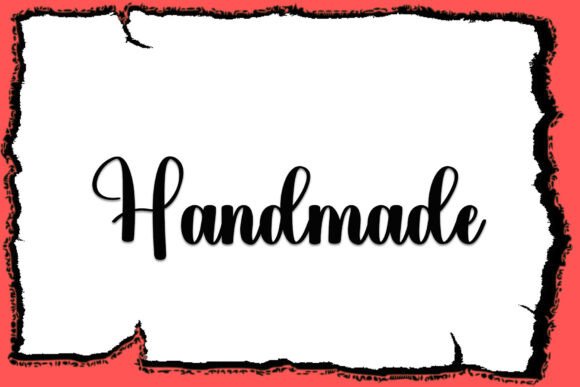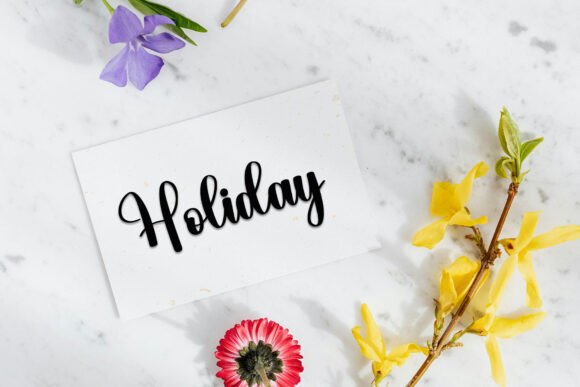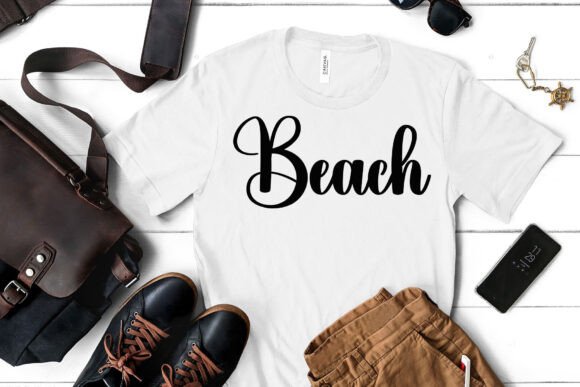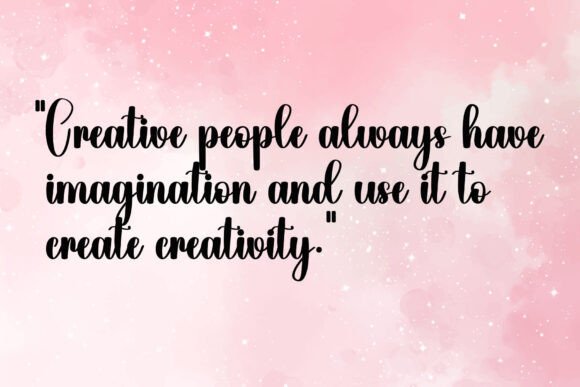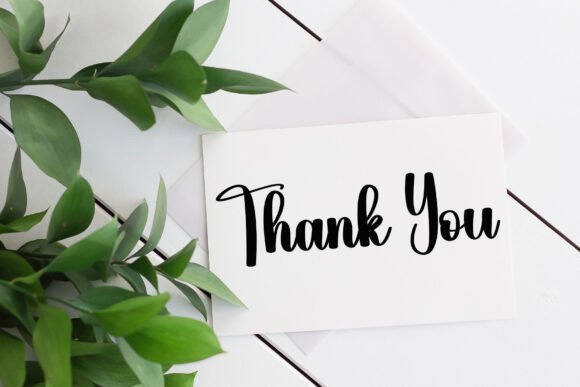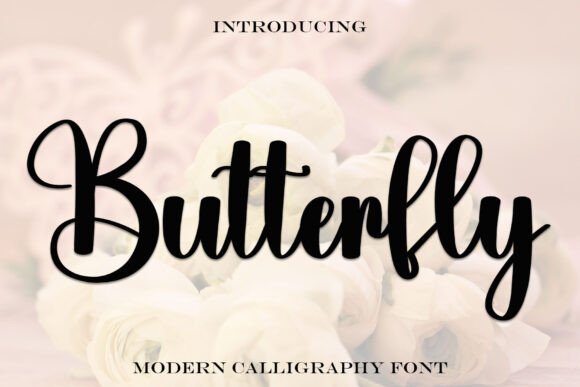
The Perfect Touch: Unlocking the Magic of Butterfly Font
As designers, we’ve all been there – staring at a blank canvas, searching for that elusive spark that brings our ideas to life. It’s the moment when a font catches our eye, and suddenly, our vision takes shape. For many of us, that spark comes in the form of a beautiful, handwritten font – one that adds a touch of elegance and sophistication to our designs.
Enter the Butterfly Font, a stunning handwritten font that embodies the perfect blend of classic calligraphy and contemporary flair. With its impeccable form and timeless charm, this font is the perfect addition to any design project. Whether you’re crafting a wedding invitation, a brand logo, or a marketing campaign, the Butterfly Font is sure to elevate your design to new heights.
For designers, the Butterfly Font is a valuable tool that can add a level of sophistication and class to any project. Its versatility and charm make it a must-have for anyone looking to create stunning, eye-catching designs that leave a lasting impression.
Key Features of Butterfly Font
• Unique Characteristics: Butterfly Font features a unique, hand-drawn design with intricate details and subtle flourishes, giving it a whimsical and elegant feel.
• Kerning and Ligatures: Butterfly Font includes advanced kerning and ligature features, ensuring that letter combinations are displayed with precision and elegance.
Butterfly Font Review
Overall, I’d say the Butterfly Font is a sweet addition to any design project, especially those with a whimsical or playful tone. ✨ Here are a few things that really shine:
• Unique and eye-catching design: The Butterfly Font is unlike any other font I’ve worked with, with its delicate, hand-drawn feel.
• Highly customizable: The font is available in a range of weights, making it easy to adjust the style to fit your needs.
• Works well in small text: Despite its delicate feel, the font holds up surprisingly well in smaller text sizes.
• May not be suitable for formal or professional projects: The whimsical feel of the font may not be the best fit for serious or corporate designs.
• May be difficult to read in certain contexts: While the font is lovely in small text, it can be challenging to read in large text sizes or in bold weights.
Overall, I’d give the Butterfly Font 4 out of 5 stars. It’s a fun and creative addition to any design project, but may not be the best choice for every situation.
Getting the Most Out of the Butterfly Font
To get the most out of the Butterfly Font, consider the following tips:
– Use it for titles and headings to add a touch of whimsy and elegance.
– Pair it with other fonts to create a unique and eye-catching combination.
– Experiment with different font sizes and colors to achieve the desired effect.
The Butterfly Font is commonly used for:
– Wedding invitations and stationery.
– Children’s book illustrations and design.
– Fashion and beauty branding and marketing materials.